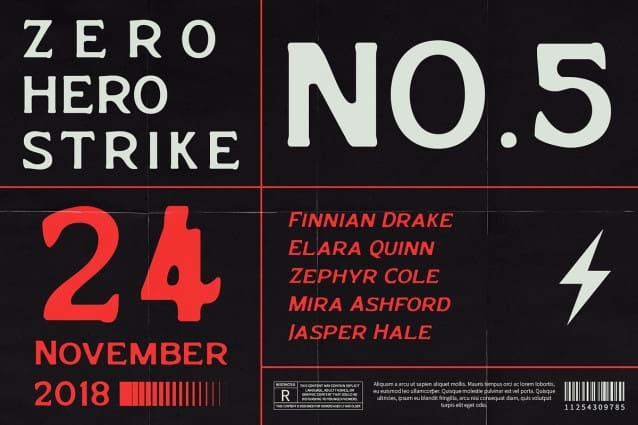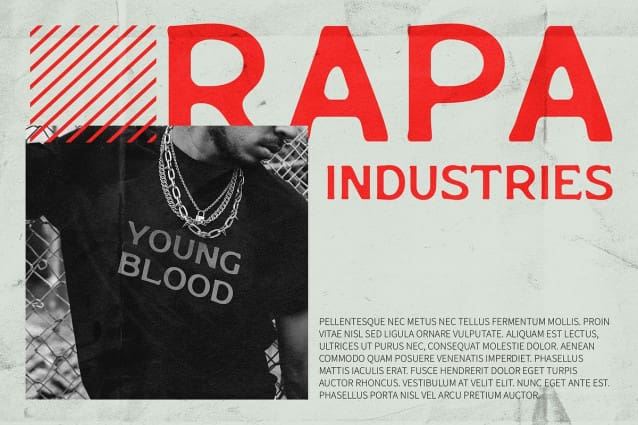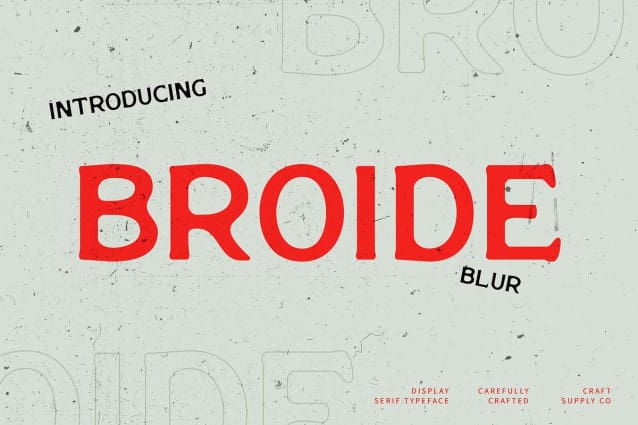
Broide Blur Font
Broide Blur Font is a distinctive serif font that seamlessly blends classic retro design elements with a unique blur effect. Its traditional serif shapes evoke a sense of vintage nostalgia, capturing the essence of timeless elegance. The blur effect introduces a soft, diffused quality to the text, enhancing depth and adding a gentle visual touch that distinguishes it from standard serif fonts.
Soft Visual Appeal with Enhanced Depth The combination of retro-inspired serif details with the subtle blur effect creates a captivating aesthetic that enhances both depth and character. This font’s ability to evoke a nostalgic feel while incorporating a modern, artistic touch makes it perfect for designs that aim to highlight a classic yet creatively distinct style. The blur effect provides a unique softness that adds an extra layer of visual interest.
Perfect for Nostalgic and Artistic Projects Broide Blur is ideal for a range of design applications that seek to emphasize a retro and artistic vibe. Whether used for posters, labels, or promotional materials, this font’s blend of vintage elegance and soft visual effects ensures a memorable and engaging presentation. It offers a unique, retro touch that enhances the overall design while maintaining a sophisticated and artistic appeal.